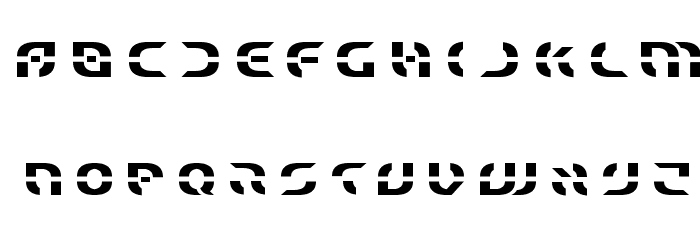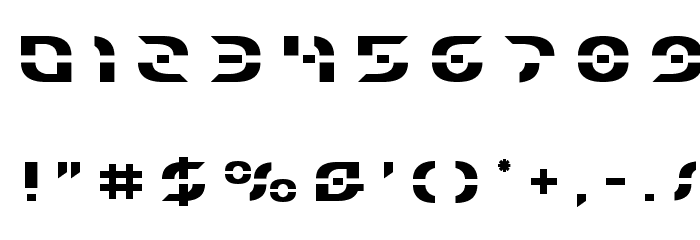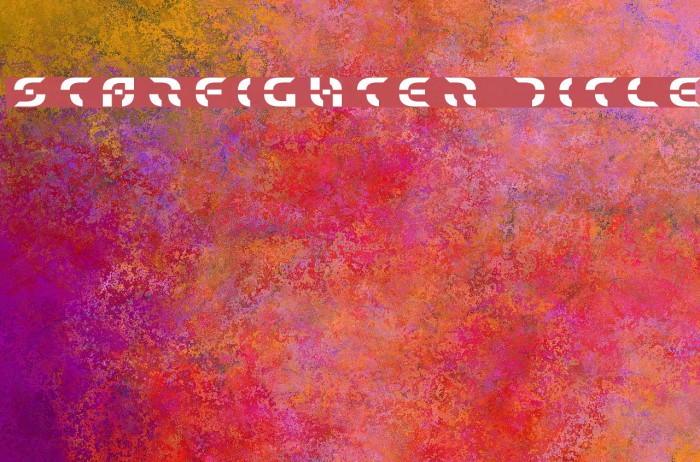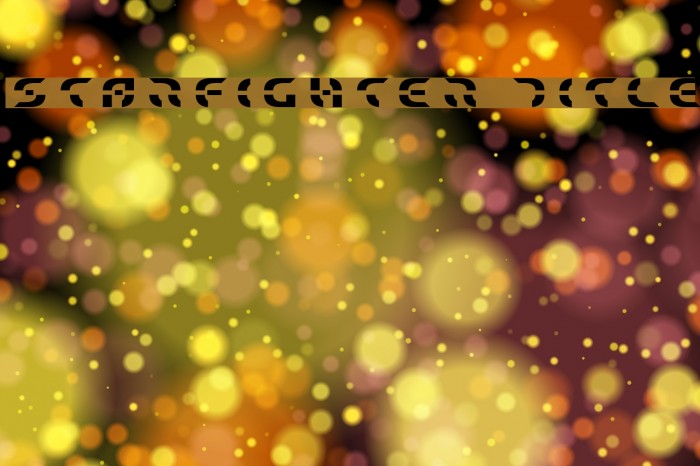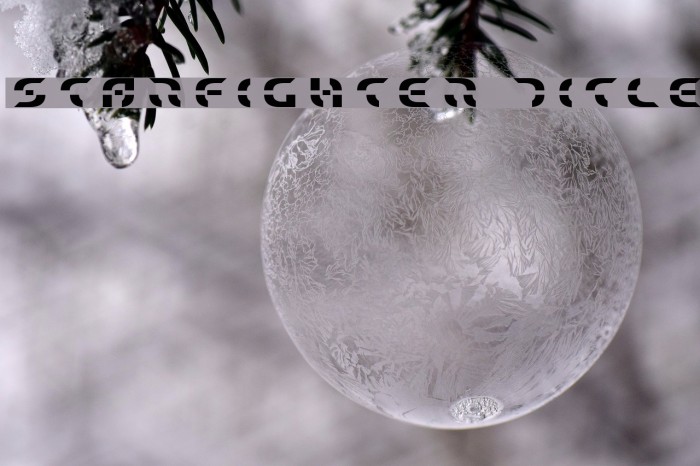
Starfighter Title Font
This font features a futuristic and geometric design, characterized by its bold and angular letterforms. Each character is crafted with a unique blend of curves and sharp edges, creating a visually striking appearance. The font's design incorporates a stencil-like effect, with certain sections of each letter removed to enhance its modern and technological aesthetic. This style is reminiscent of sci-fi and digital themes, making it ideal for projects that require a cutting-edge and innovative look. The font maintains a consistent weight throughout, providing a uniform and cohesive appearance across all characters.
A futuristic, geometric font with bold, angular letterforms and a stencil-like effect.
- Font: Starfighter Title
- Proposed Projects: Ideal for sci-fi movie posters, video game titles, tech branding, and futuristic-themed designs.